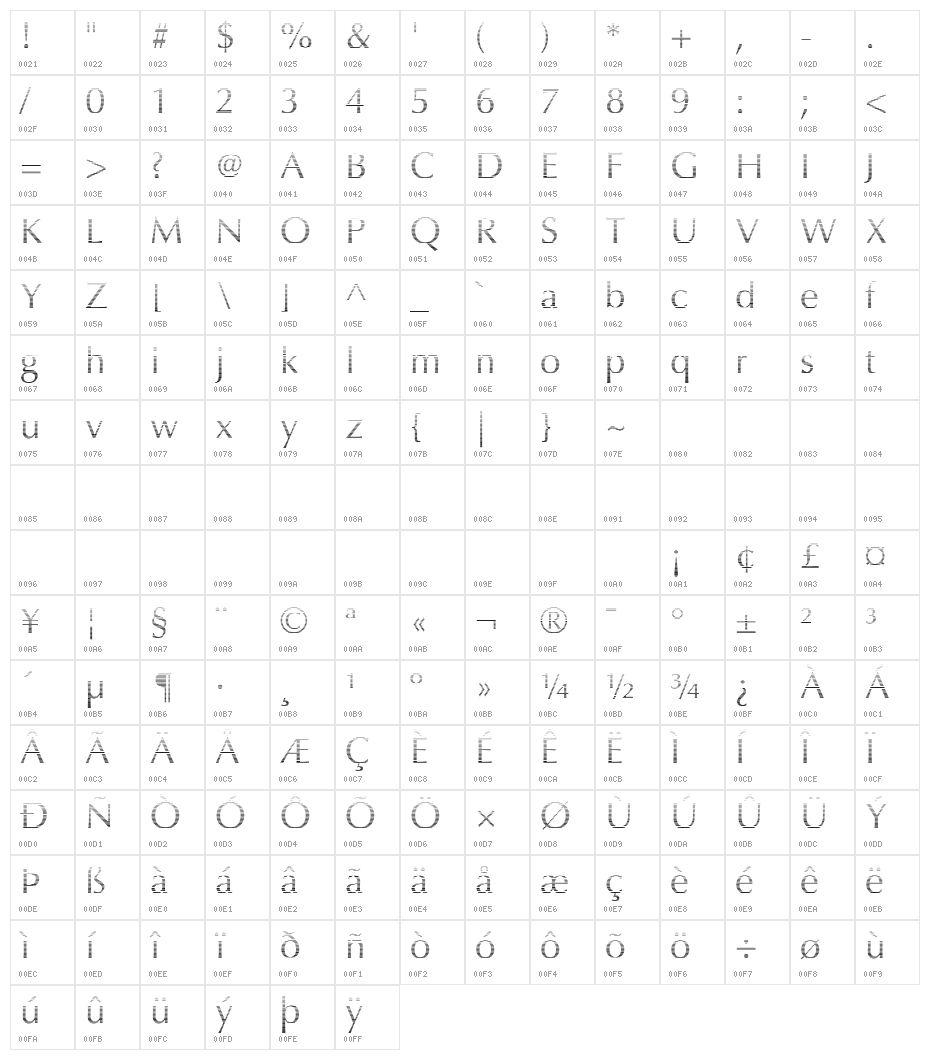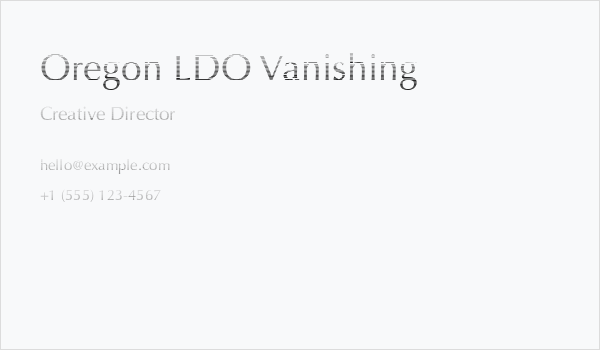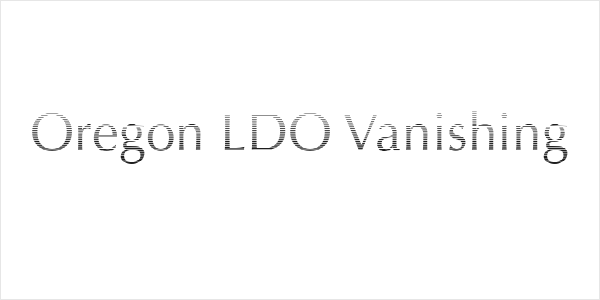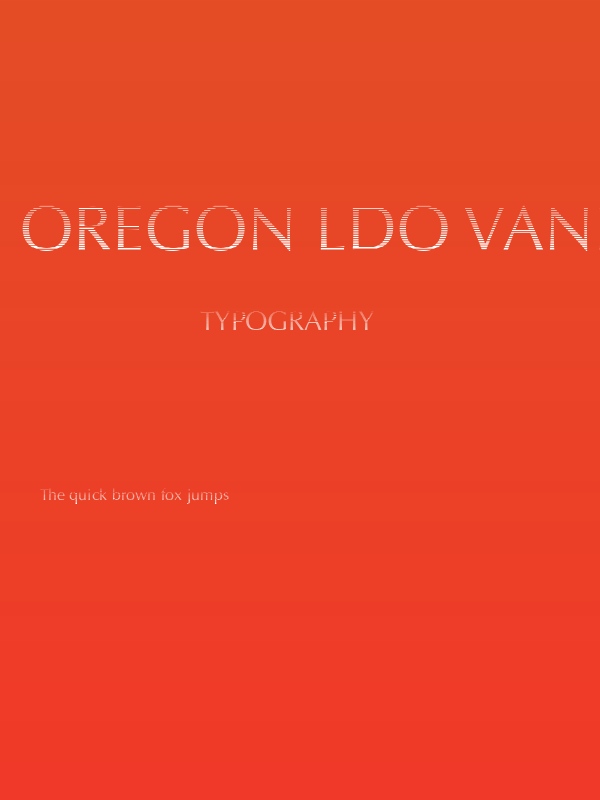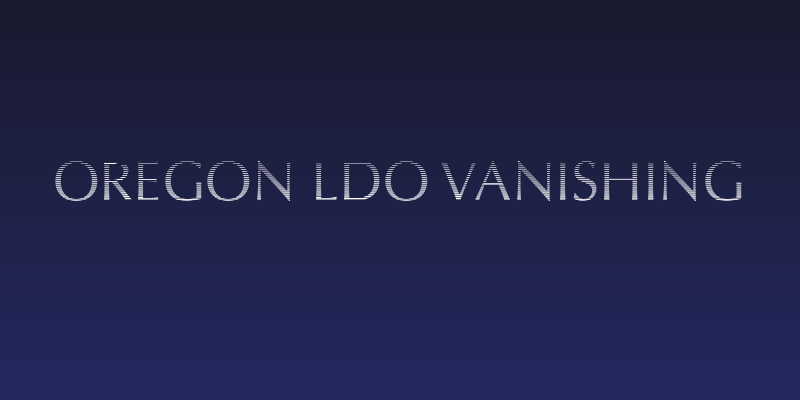
Oregon LDO Vanishing Font
Oregon LDO Vanishing Description
This font features a unique vanishing effect, where each character is composed of horizontal lines that create an illusion of fading or disappearing. The uppercase and lowercase letters maintain a classic serif structure, yet the line-based design adds a modern twist. The numerals and special characters follow the same stylistic approach, ensuring consistency across all glyphs. This font's distinct appearance makes it ideal for creative and artistic projects, where a touch of sophistication and innovation is desired.
| Proposed Projects | Ideal for artistic posters, innovative branding, and creative editorial design. |